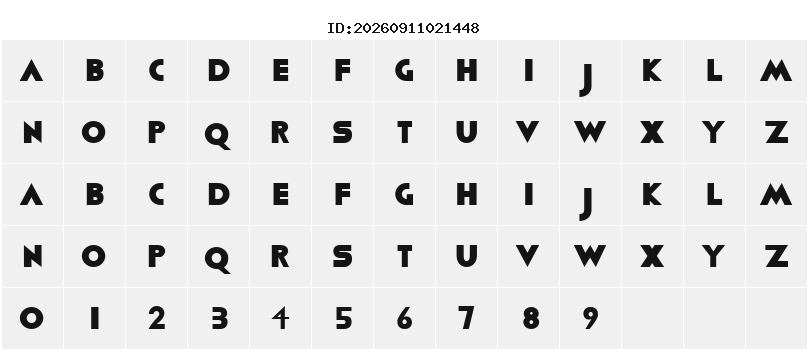
Viafont.ttf is a modern, elegant sans-serif font designed for ultimate readability and visual harmony. Perfect for branding, headlines, web design, and print materials.